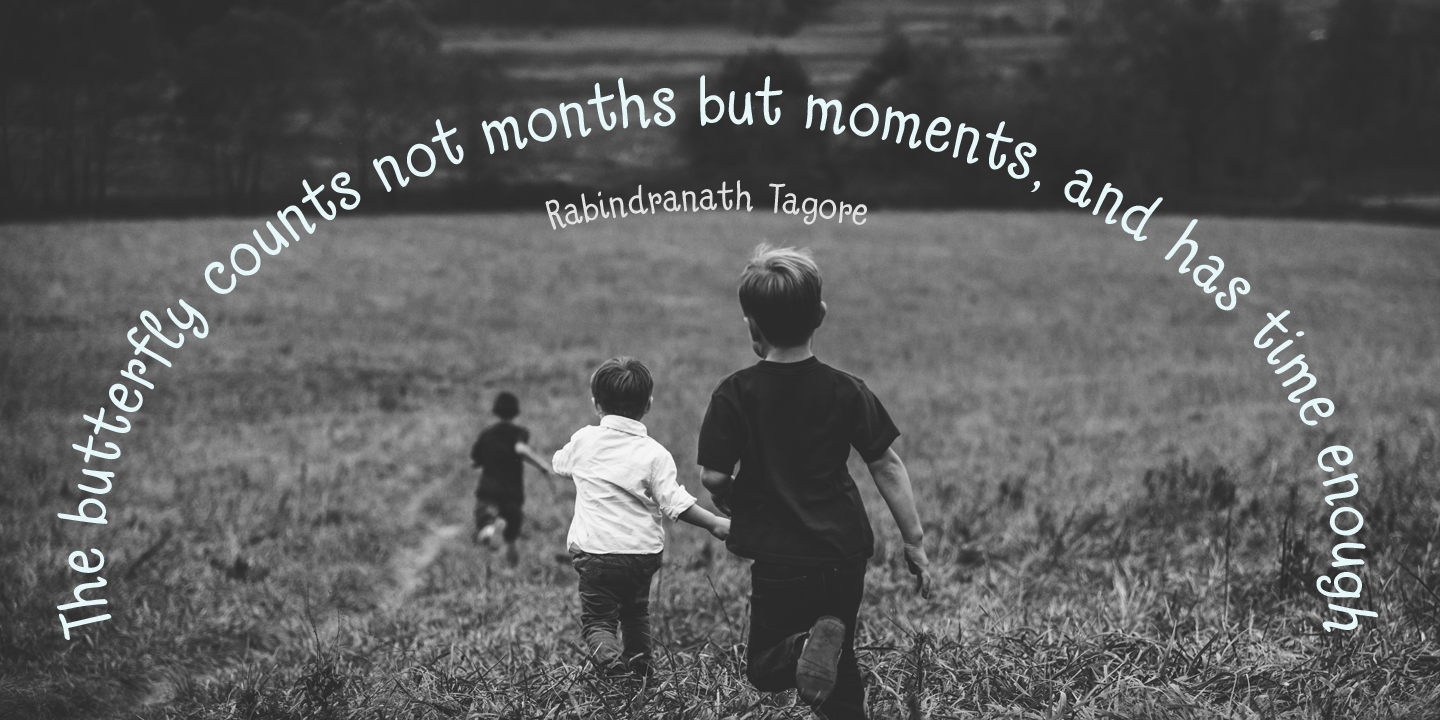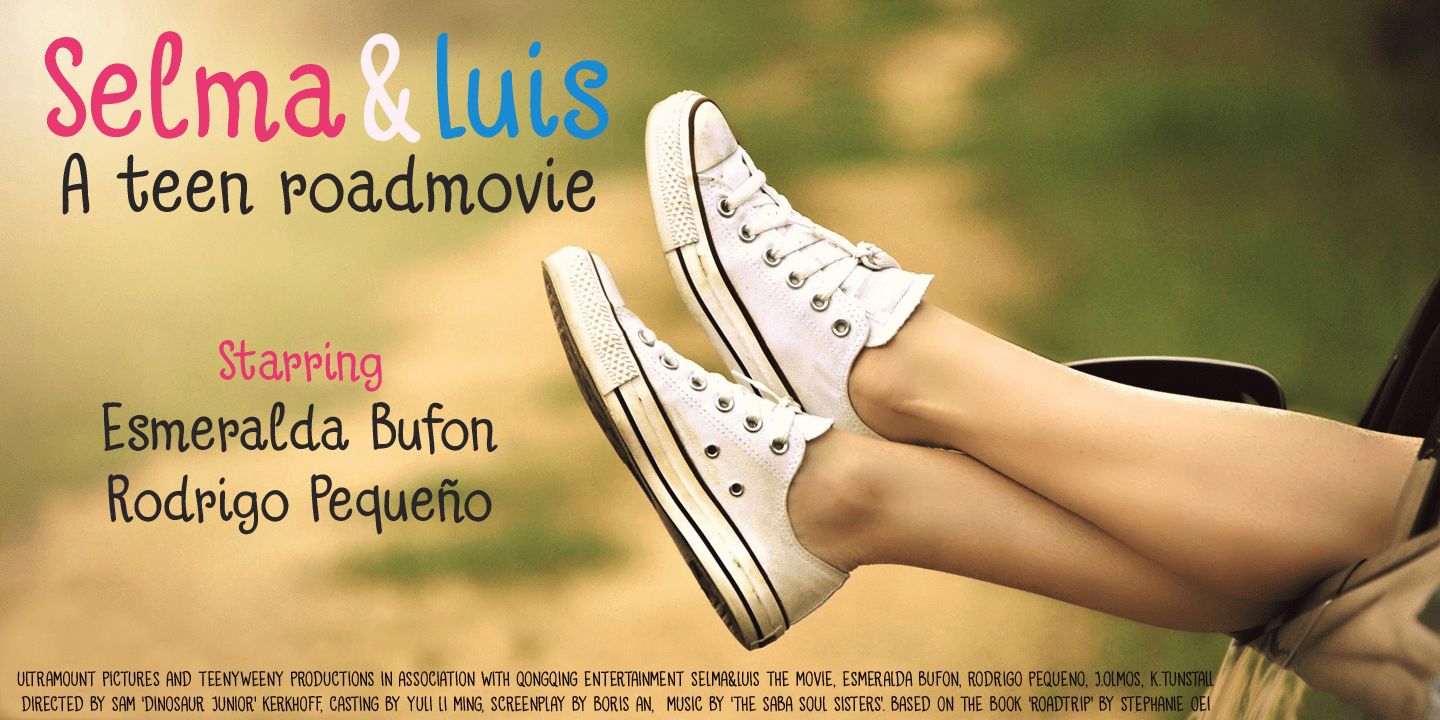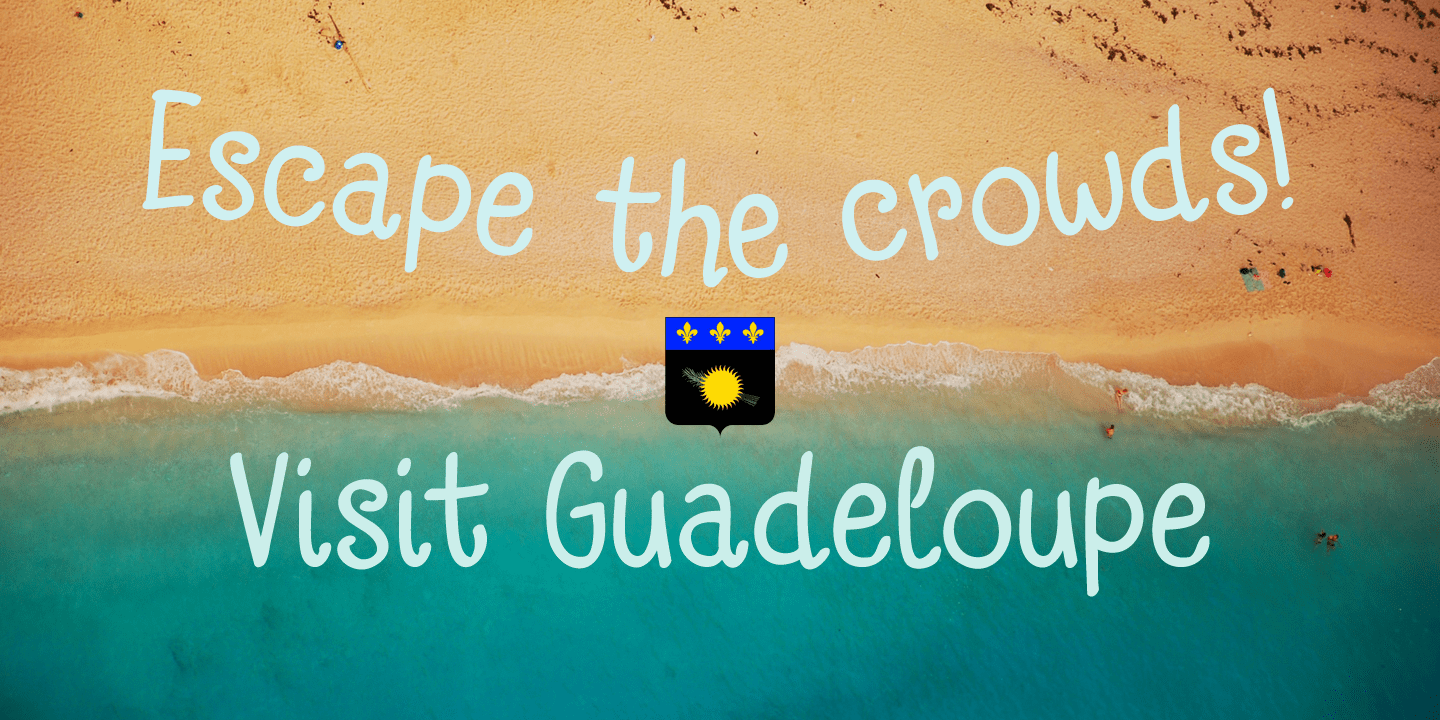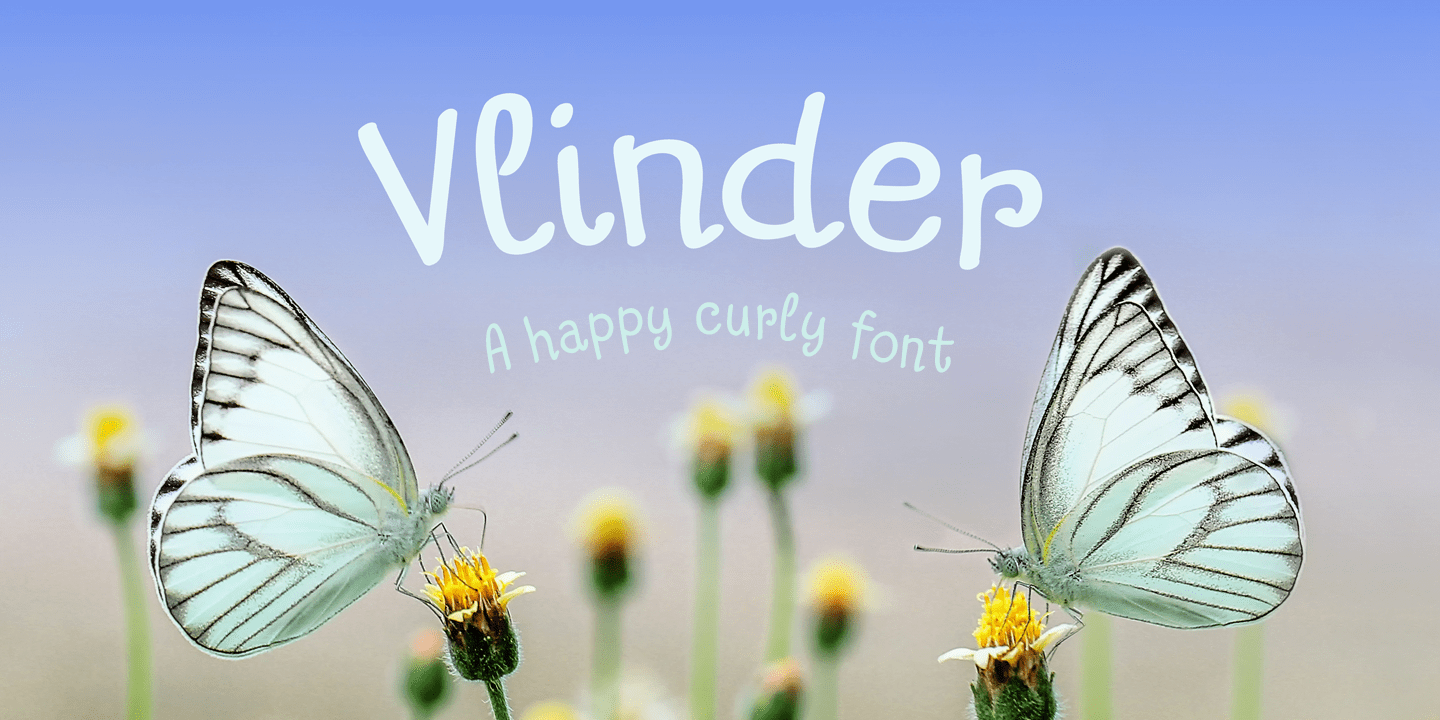
Vlinder means butterfly in Dutch. Vlinder font is a cute and curly typeface with fluttering glyphs and an overall happy feel to it. Use it for childrens books, posters and invites. Comes with flowery fields of diacritics.